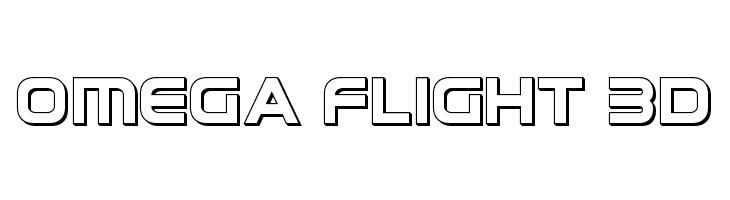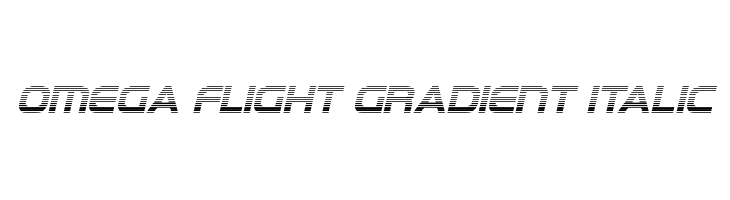
A bold, futuristic font with a 3D effect and geometric design.
A dynamic 3D italic font with a futuristic and bold design.
A bold, modern font with geometric shapes and a futuristic style.
A bold, italicized font with a modern and dynamic style.
A bold, futuristic, and condensed font with a sleek geometric style.
A bold, condensed italic font with a modern and futuristic style.
A bold, futuristic font with expanded geometric letterforms.
A modern, italicized, and expanded font with a bold, futuristic style.
A futuristic font with a gradient effect created by horizontal lines, offering a dynamic and modern appearance.
A futuristic, italicized font with a gradient effect and striped pattern.